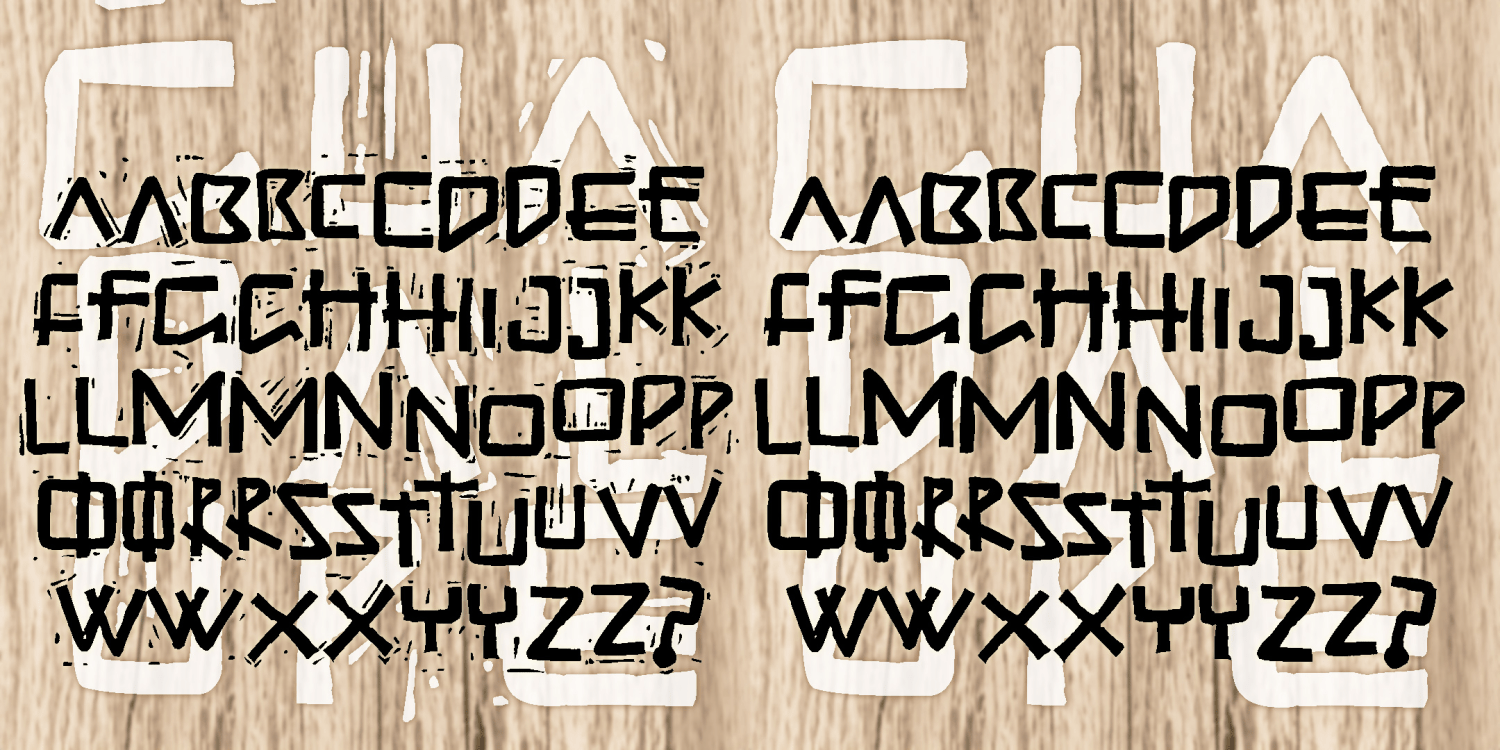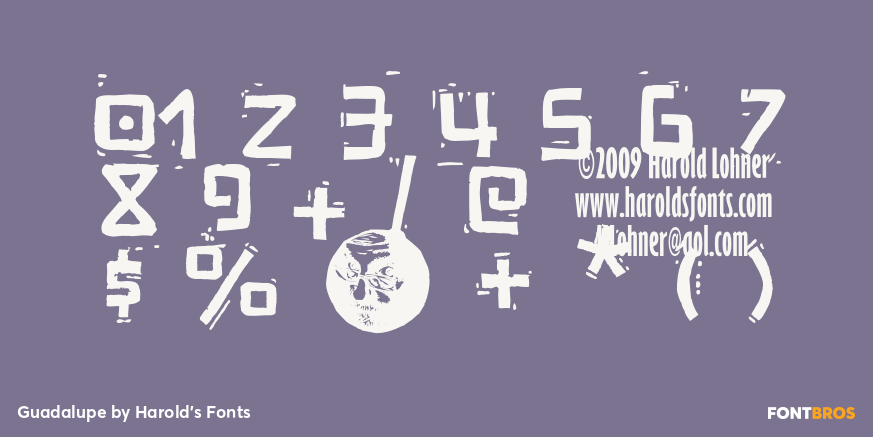
Guadalupe
The GUADALUPE fonts were inspired by the unique architectural lettering at the famed Basilica of Guadalupe in Mexico City. Rustic and random, with unusual letterforms, GUADALUPE suggests the past and present, the handmade and the machine-made.
For my version, I redrew the letters and added missing characters. Then I carved and printed a linoleum cut; this added a hand-crafted texture including the stray "chatter" characteristic of the medium. And now there’s a cleaner companion font, minus the chatter, GUADALUPE DOS. Each font has two variants of each letter in the upper- and lowercase positions to create more of a handmade feel.
More about the basilica and the lettering: The current building was built in 1974-1976 and was designed by the architect Pedro Ramírez Vásquez. What especially appealed to me, of course, was the lettering inside and out. Reflective of the style of its time, the letters were very different from the usual metal letters seen on buildings. Some of the letters suggest early Christian texts and incorporates Greek forms: the phi-like Q, the chi-rho Rs, the cruciform Ts.